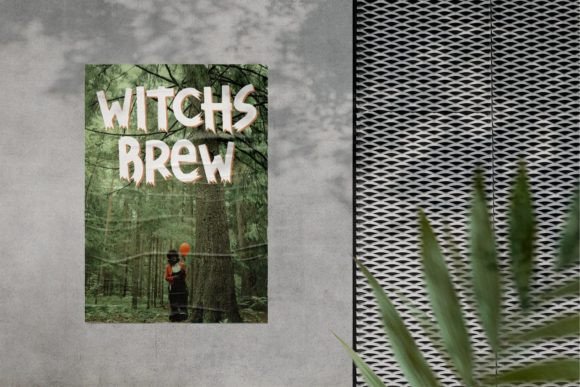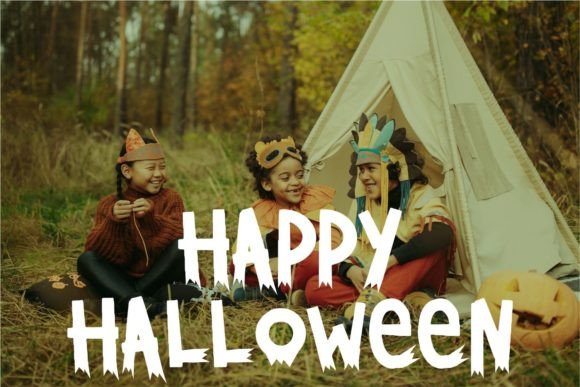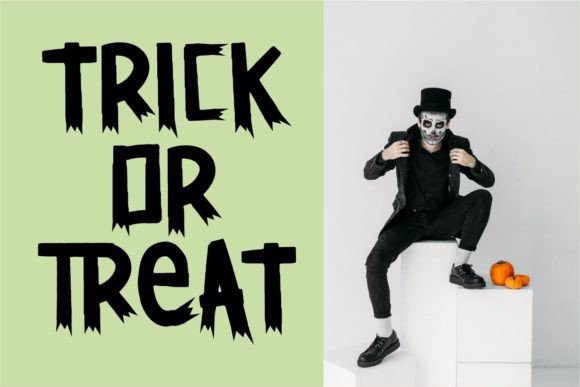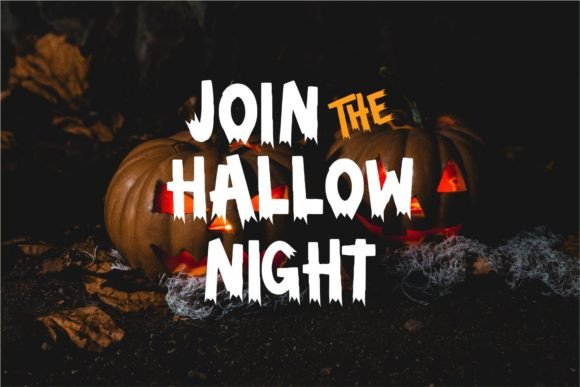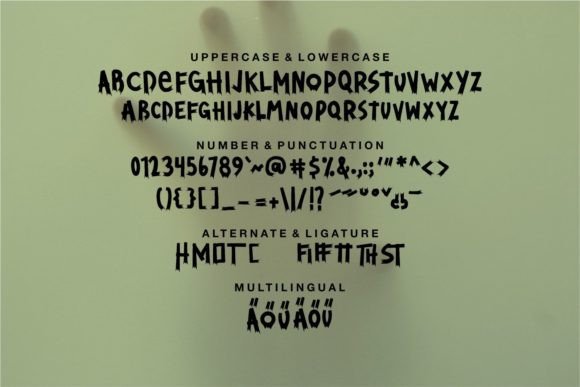
Haskal Font: Elevate Your Designs with a Rough yet Refined All-Caps Display Font
In the world of typography, fonts play a crucial role in conveying messages, evoking emotions, and creating lasting impressions. For designers and crafters seeking a unique and eye-catching font to elevate their visual projects, Haskal Font is an excellent choice. This all-caps display font boasts a rough, textured style that adds a touch of rugged charm to any design. In this article, we’ll explore the features, benefits, and uses of Haskal Font, and why it’s an ideal addition to your typographic arsenal.
What is Haskal Font?
Haskal Font is a distinctive all-caps display font characterized by its rough, distressed texture. This font is perfect for designers and crafters looking to add a touch of grit and sophistication to their work. The rough texture of Haskal Font gives it a unique, hand-crafted feel that sets it apart from more traditional, polished fonts.
Key Features of Haskal Font
• All-caps design: Haskal Font is an all-caps font, making it perfect for headlines, titles, and short phrases that require emphasis and impact.
• Rough, textured style: The font’s distressed texture adds a touch of ruggedness and charm, making it ideal for designs that require a bit of edge.
• Highly versatile: Haskal Font can be used for a wide range of projects, from invitations and greeting cards to branding materials, business cards, quotes, posters, and more.
Benefits of Using Haskal Font
So, why choose Haskal Font for your design projects? Here are just a few benefits of using this unique font:
• Adds texture and interest: The rough texture of Haskal Font adds depth and visual interest to your designs, making them more engaging and attention-grabbing.
• Creates a lasting impression: The distinctive style of Haskal Font makes it memorable and impactful, ensuring that your message or brand stays top of mind.
• Easy to pair with other fonts: Haskal Font pairs well with a variety of font styles, making it easy to create harmonious and visually appealing typographic combinations.
Uses of Haskal Font
Haskal Font is an incredibly versatile font that can be used for a wide range of design projects, including:
• Invitations and greeting cards: Add a touch of elegance and sophistication to your invitations and greeting cards with Haskal Font.
• Branding materials: Use Haskal Font to create eye-catching logos, business cards, and other branding materials that make a lasting impression.
• Posters and flyers: Haskal Font is perfect for creating bold, attention-grabbing posters and flyers that showcase your message or product.
• Social media graphics: Elevate your social media presence with Haskal Font, using it to create engaging and shareable graphics.
Tips for Using Haskal Font
To get the most out of Haskal Font, here are a few tips to keep in mind:
• Use it sparingly: Haskal Font is a bold, attention-grabbing font, so use it sparingly to avoid overwhelming your design.
• Experiment with colors: The rough texture of Haskal Font pairs well with a range of colors, so don’t be afraid to experiment and find the perfect combination for your design.
• Pair it with complementary fonts: Haskal Font pairs well with a variety of font styles, so try pairing it with complementary fonts to create visually appealing typographic combinations.
In conclusion, Haskal Font is a unique and versatile all-caps display font that adds a touch of rugged charm to any design. With its rough, textured style and highly versatile nature, it’s perfect for designers and crafters looking to elevate their visual projects. Whether you’re creating invitations, branding materials, posters, or social media graphics, Haskal Font is an excellent choice.